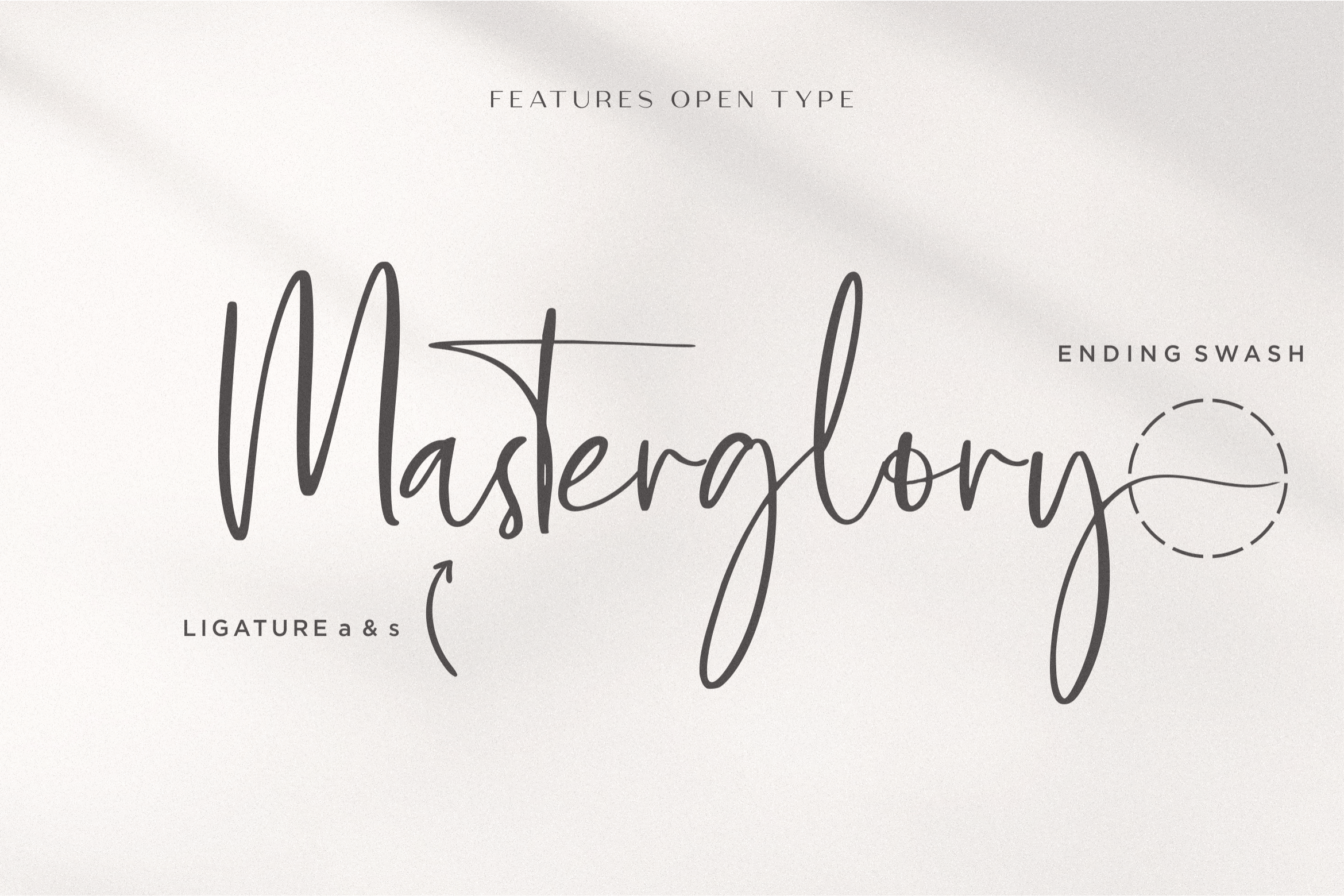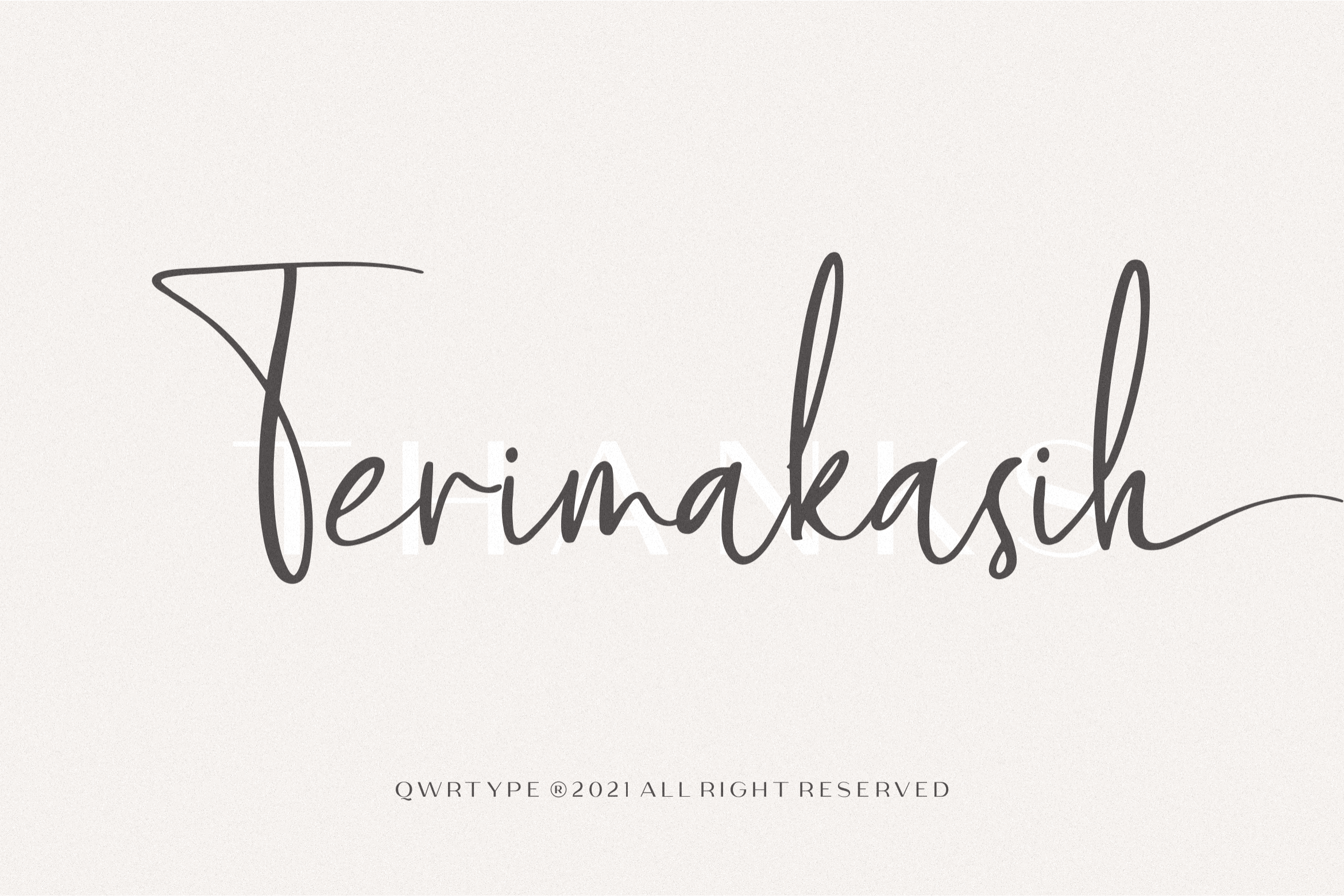
Heartworld Font
Heartworld Script Font
This is a Modern Luxury Script Font
Heartworld is perfect for product packaging, branding project, megazine, social media, wedding, or just used to express words above the background.